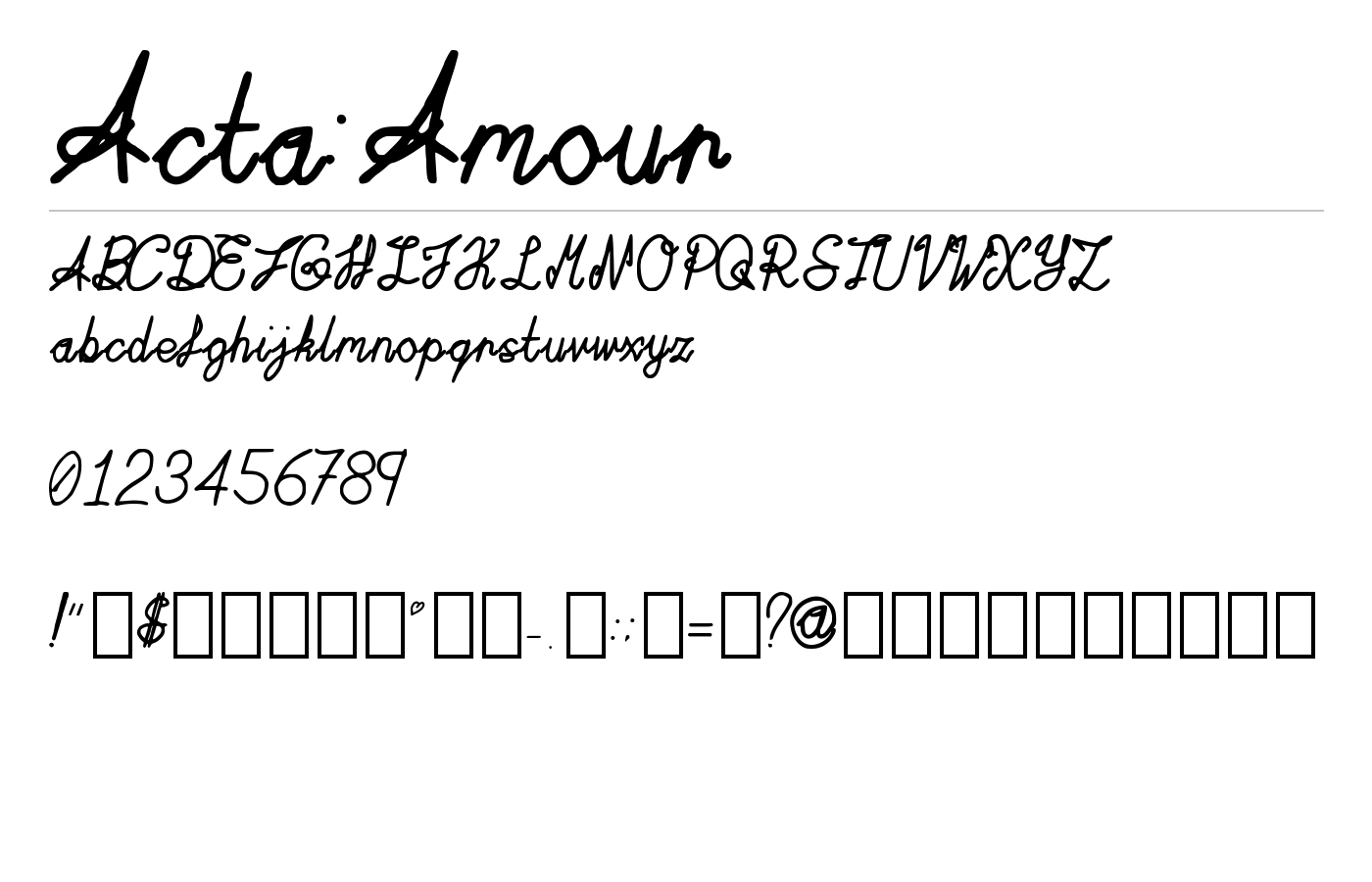
Acta:Amour is a delicate, cursive script font that captures a handwritten, personal feel with its slender, flowing lines and moderate slant. Its elegant yet casual style makes it perfect for romantic or intimate designs, such as wedding invitations, greeting cards, or boutique branding. The font’s airy letter spacing and unique character shapes add charm and approachability, balancing sophistication with warmth.
Acta:Amour Font
About Acta:Amour Font